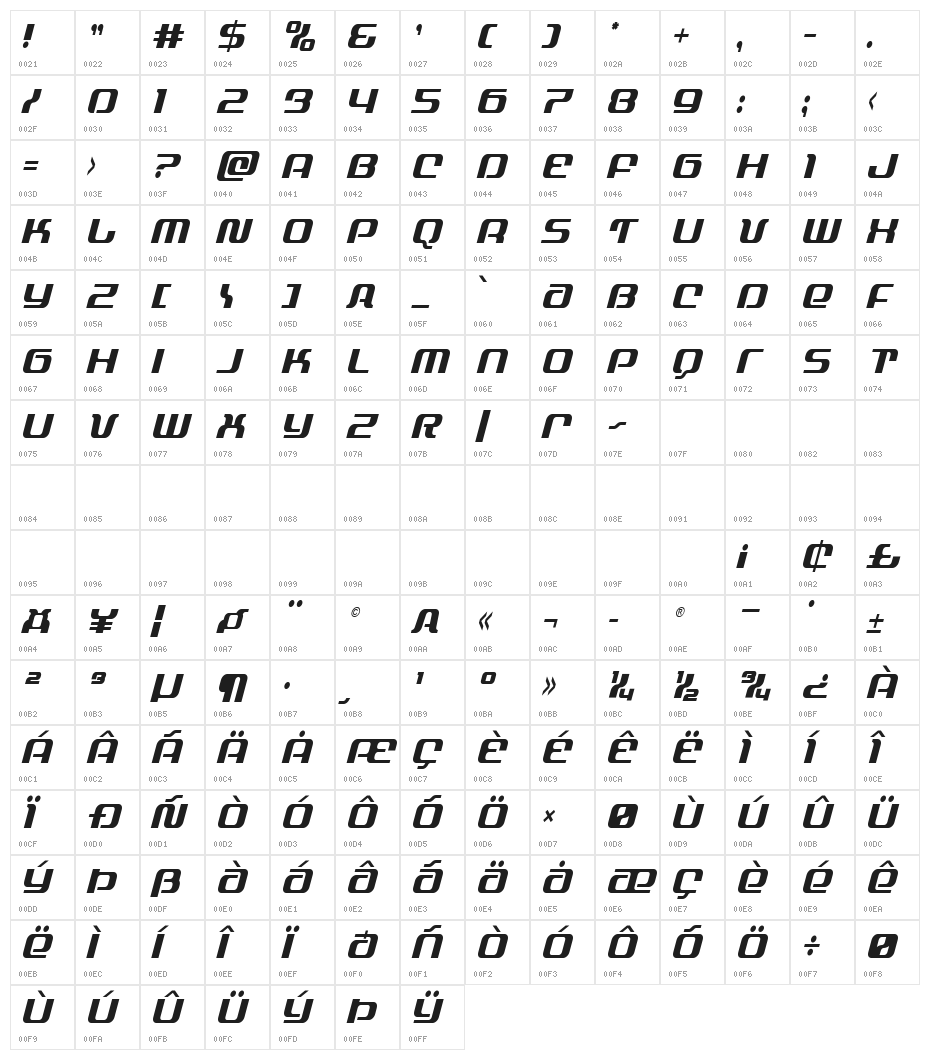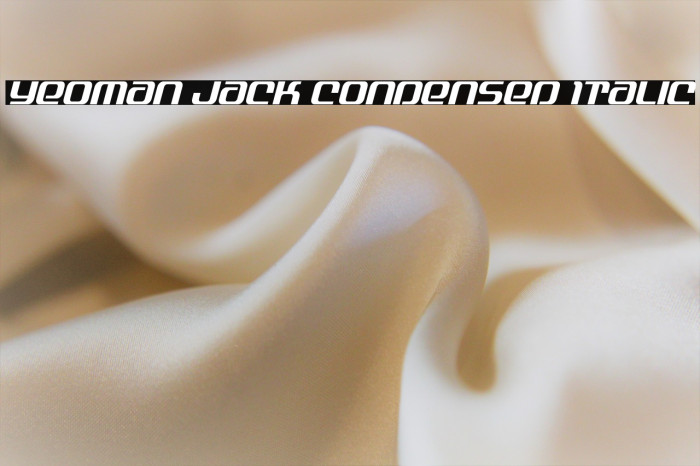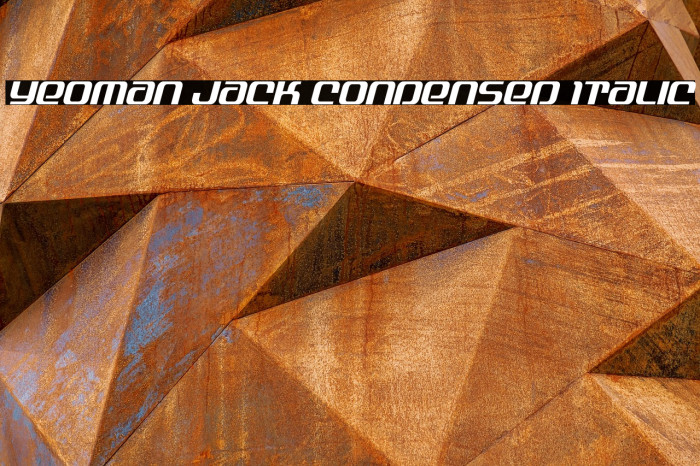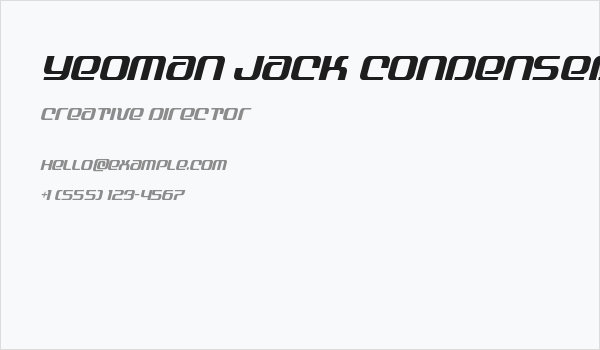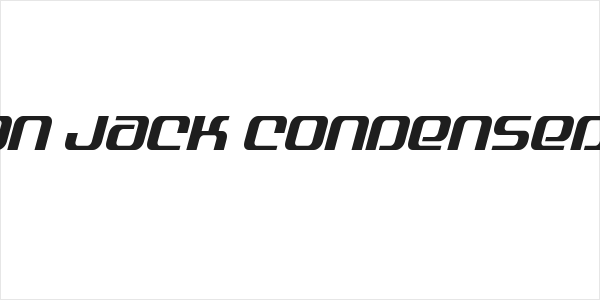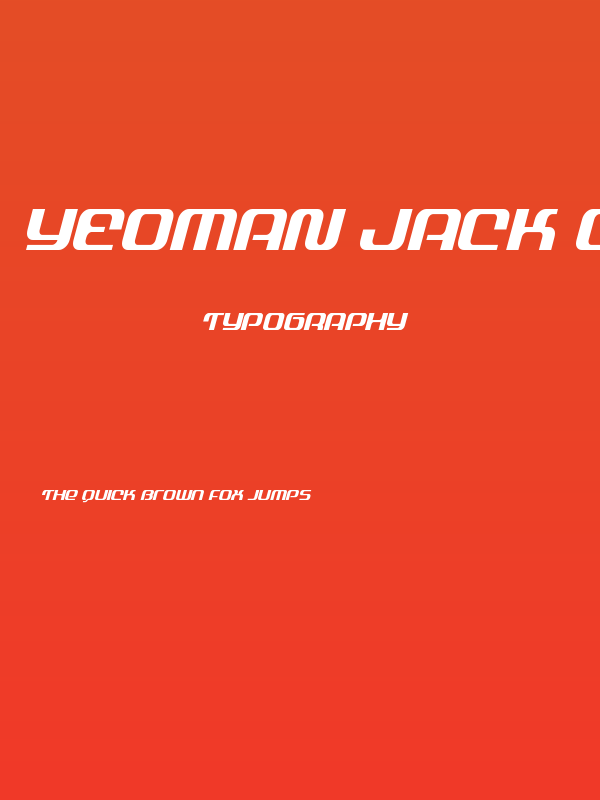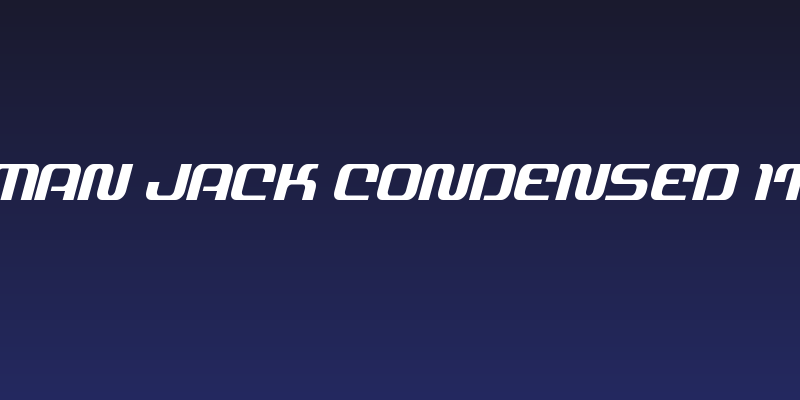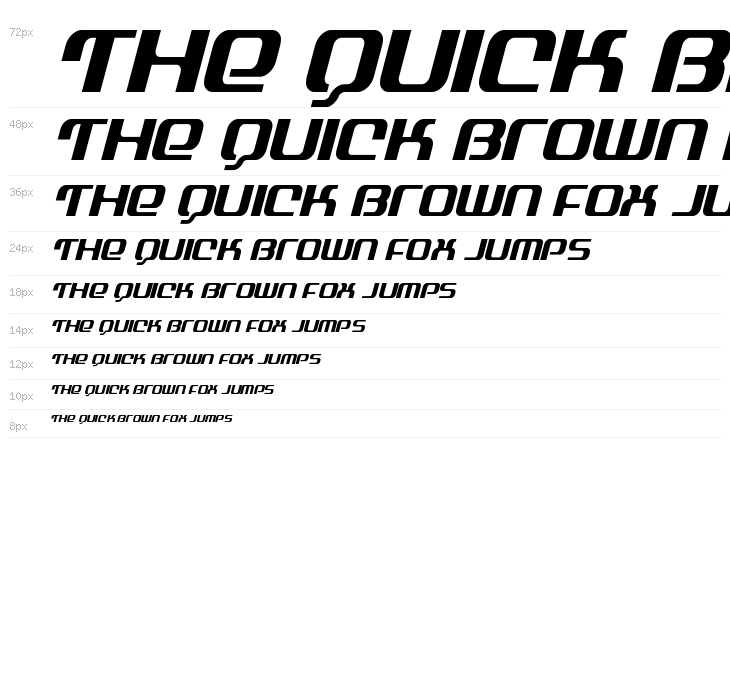
Yeoman Jack Condensed Italic Font
Yeoman Jack Condensed Italic Description
This font features a bold, italicized style with a condensed width, giving it a sleek and modern appearance. The characters are designed with a forward-leaning slant, enhancing the dynamic and energetic feel. The strokes are thick and consistent, providing a strong visual impact. The uppercase and lowercase letters maintain a uniform height, contributing to a cohesive look. The numerals are clear and distinct, matching the overall style of the alphabet. Special characters are well-integrated, ensuring versatility in various design applications.